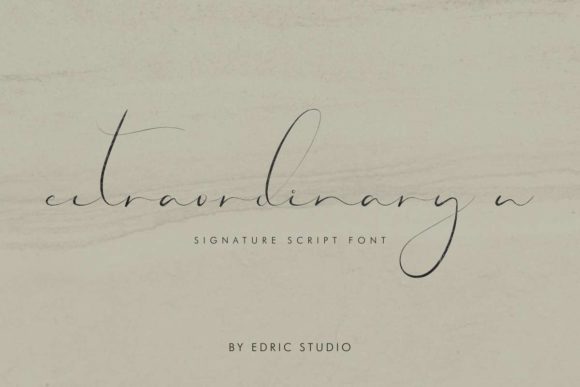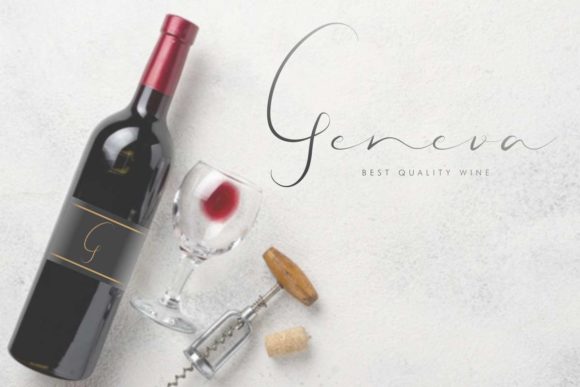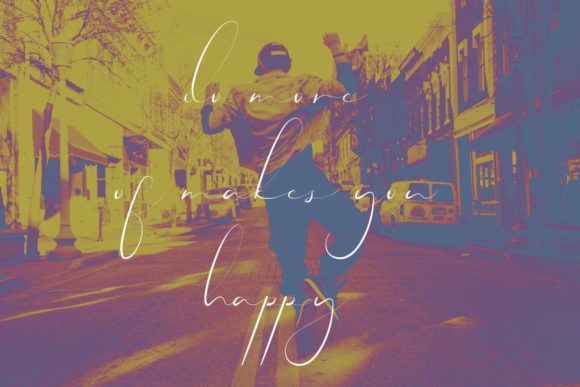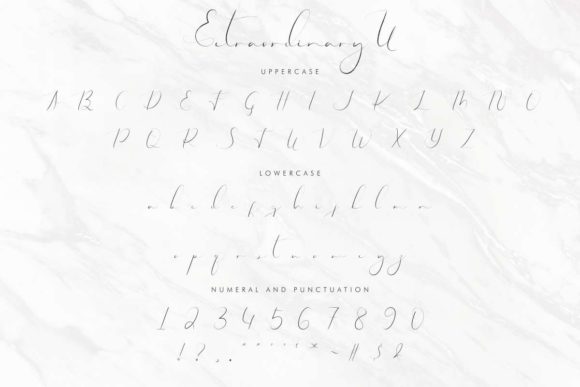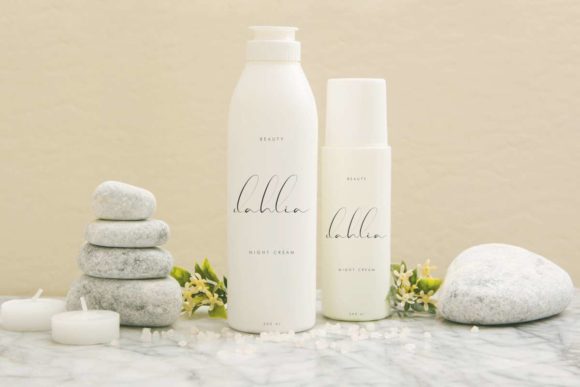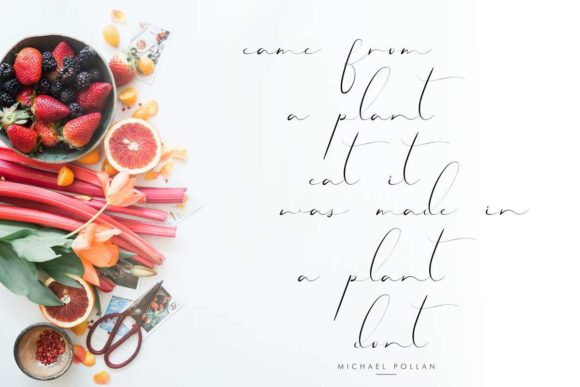
Discover the Extraordinary U Font: A Dainty and Elegant Handwritten Delight
Are you on the hunt for a font that exudes elegance and sophistication? Look no further than the Extraordinary U Font! This beautifully crafted handwritten font is sure to capture the hearts of designers, crafters, and anyone looking to add a touch of refinement to their projects. In this article, we’ll dive into the world of Extraordinary U, exploring its features, benefits, and uses.
What is Extraordinary U Font?
Extraordinary U is an incredibly dainty and elegant handwritten font that is sure to make your designs stand out. With its delicate strokes and refined aesthetic, this font is perfect for a variety of projects, from wedding invitations and stationery to branding and packaging. The font’s creator has carefully crafted each letter to ensure that it is both beautiful and legible, making it an excellent choice for designers and crafters alike.
One of the standout features of Extraordinary U is its PUA (Private Use Area) encoding. This means that you can access all of the glyphs and swashes with ease, giving you the flexibility to create unique and eye-catching designs. With PUA encoding, you can easily insert special characters, ligatures, and other decorative elements into your text, taking your designs to the next level.
Features and Benefits of Extraordinary U Font
So, what makes Extraordinary U Font so special? Here are just a few of its key features and benefits:
- Elegant and Refined Aesthetic: Extraordinary U boasts a beautiful, handwritten design that is sure to add a touch of sophistication to your projects.
- PUA Encoding: With PUA encoding, you can easily access all of the glyphs and swashes, giving you maximum creative flexibility.
- Legible and Readable: Despite its delicate design, Extraordinary U is highly legible and readable, making it perfect for body text and headlines.
- Versatile: This font is suitable for a wide range of projects, from digital designs to print materials.
Uses for Extraordinary U Font
So, what can you use Extraordinary U Font for? The possibilities are endless! Here are a few ideas to get you started:
- Wedding Invitations and Stationery: Add a touch of elegance to your wedding designs with Extraordinary U.
- Branding and Packaging: Use this font to create beautiful and sophisticated brand identities.
- Digital Designs: Extraordinary U is perfect for digital designs, including social media graphics, blog headers, and more.
- Print Materials: This font is also suitable for print materials, such as brochures, flyers, and business cards.
Tips for Using Extraordinary U Font
To get the most out of Extraordinary U Font, here are a few tips to keep in mind:
- Pair with Other Fonts: Experiment with pairing Extraordinary U with other fonts to create unique and eye-catching combinations.
- Use for Headlines and Titles: This font is perfect for headlines and titles, where its elegant design can really shine.
- Experiment with Colors: Try using Extraordinary U with different colors and textures to add depth and interest to your designs.
In conclusion, Extraordinary U Font is a truly special font that is sure to delight designers and crafters alike. With its elegant and refined aesthetic, PUA encoding, and versatility, this font is perfect for a wide range of projects. Whether you’re looking to create beautiful wedding invitations, sophisticated brand identities, or eye-catching digital designs, Extraordinary U is an excellent choice. So why wait? Discover the extraordinary world of Extraordinary U Font today!